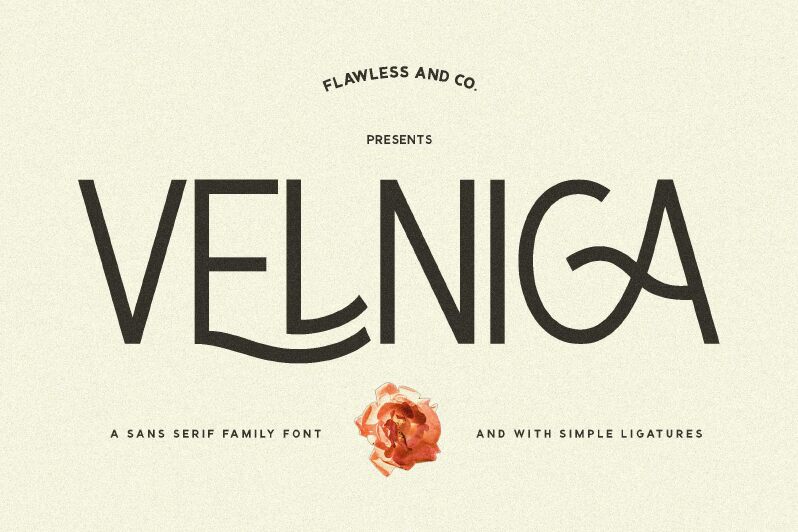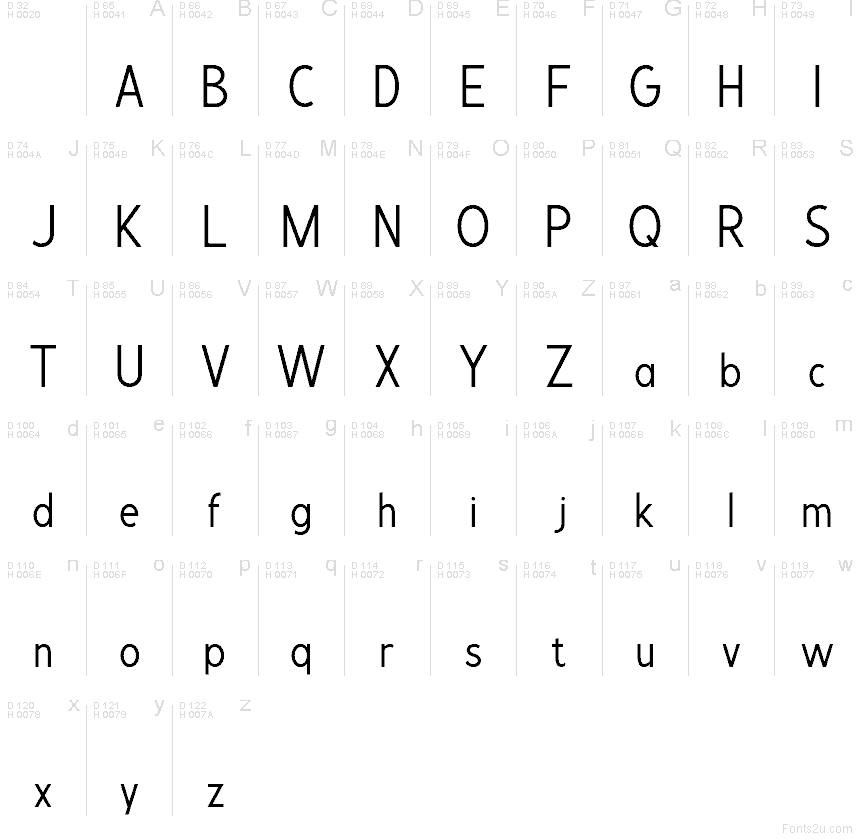
Velnica Regular
Velnica font by Achmad Yani of Flawless and Co. is a free sans serif font that hits that sweet spot between sharp professionalism and easygoing warmth. Its tall, clean forms and softly rounded joins give text a smooth, steady rhythm that reads effortlessly on screen and in print. The letters feel airy without looking fragile, so you get clarity at small sizes and confident impact when scaled up.
Using Velnica, you can keep a consistent voice across branding, headlines, packaging, posters, social media graphics, and clean editorial layouts. This free font’s even spacing and tidy curves help long words stay legible while still feeling stylish and contemporary. For a simple pairing, match Velnica with a light, neutral serif for body copy and let Velnica handle titles and navigational text.